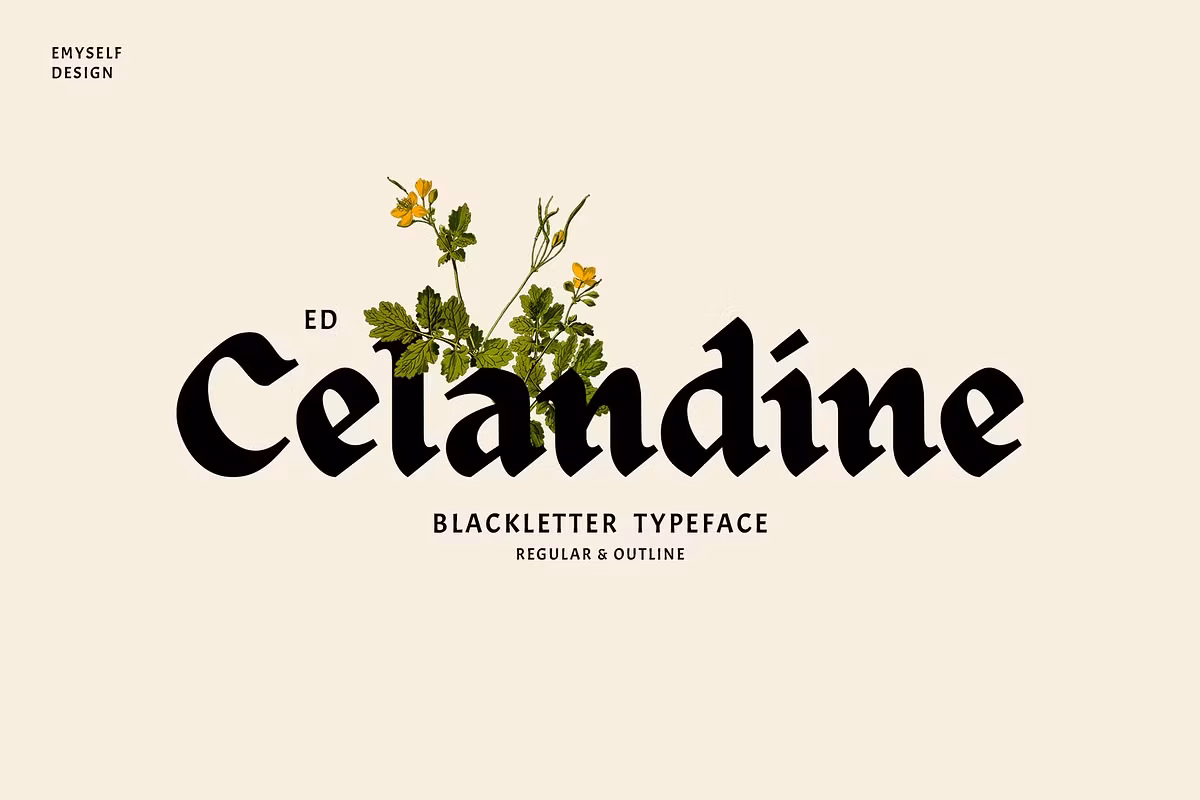
ED Celandine Typeface Free Download is a sophisticated and modern typeface designed to bring elegance and readability to your designs. With its clean, sharp letterforms and versatile design, this font is perfect for creating logos, branding materials, editorial layouts, websites, and more. Its contemporary style ensures clarity while maintaining a polished and professional look, making it ideal for both corporate and creative projects. Whether you're designing for a luxury brand, a modern business, or a sleek marketing campaign, ED Celandine Typeface Free Download lets you explore its beautiful design in personal projects before purchasing a commercial license. Add a touch of modern sophistication and style to your designs with this beautifully crafted typeface.